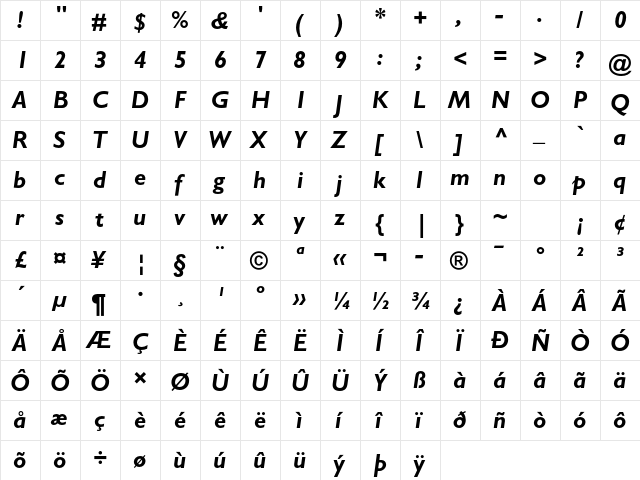
Gill Sans Std Bold Italic Font Preview
| Designer | Eric Gill |
Design Context for Gill Sans Std Typeface
Gill Sans Std takes a measured approach to typography — its balanced proportions and neutral character make it a reliable workhorse for both digital and print work. Its italic angle brings a sense of urgency and motion to the letterforms. Its bold stroke weight gives it real presence on the page.
Pro Tip: Try Gill Sans Std for annotation and caption copy alongside an upright companion — the contrast in angle creates a dynamic but ordered typographic system.